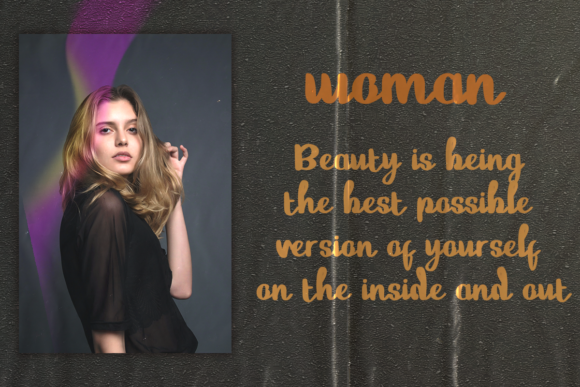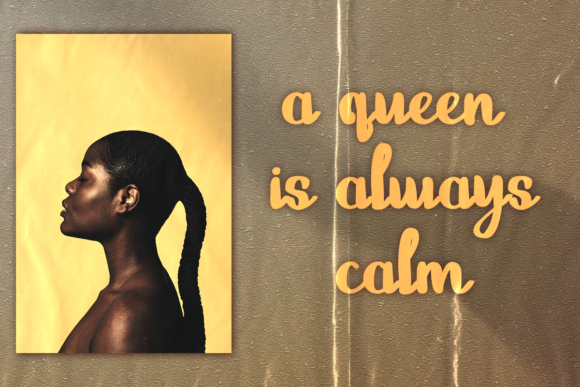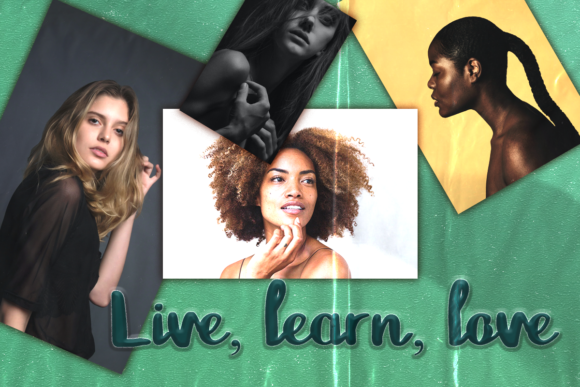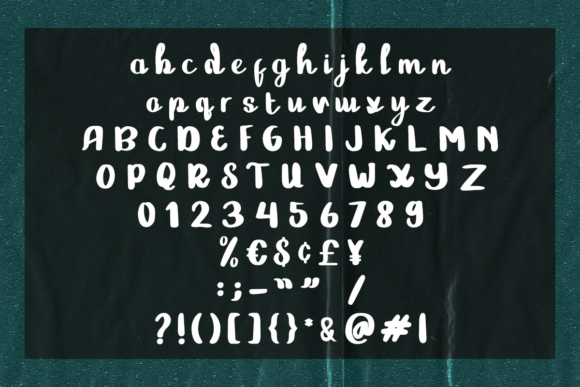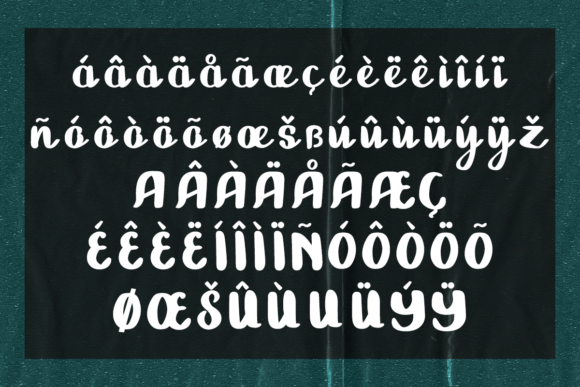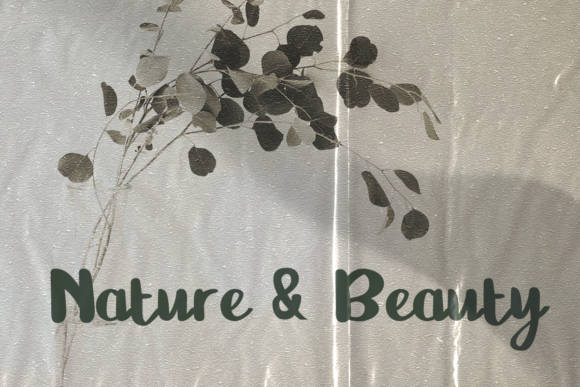
Introduction to Sandralia Font
Sandralia is a cute and quirky handwritten font.
It will add an incredibly joyful touch to your designs Add this beautiful handwritten font to each of your creative ideas and notice how it makes them stand out.